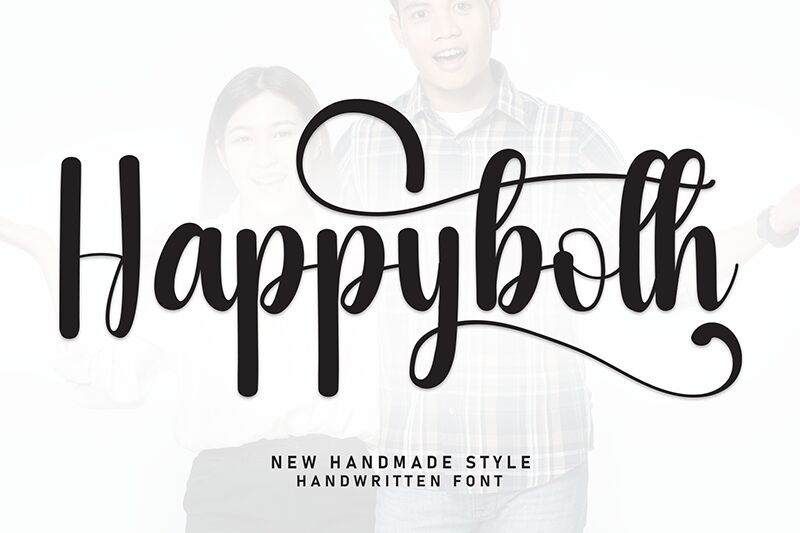
Happyboth
Happyboth font by Andi Moz is a stylish brush-condensed font that carries an elegant and expressive shape to the table. Its flowing strokes exhibit softness and artistic emotion, while the overarching contemporary style shines through. Because letters are tall as they are thin, the writer gets an extra condense touch when making use of this free brush font.
Sports projects always benefit from adding a lively feel to them, thus Happyboth is relevant in team logos for sports, in addition to displaying it on good-looking packaging labels. Suitable uses further include apparel designs, small branding projects, advertisements, posters and fliers, magazines’ front cover headings, and more creative applications.